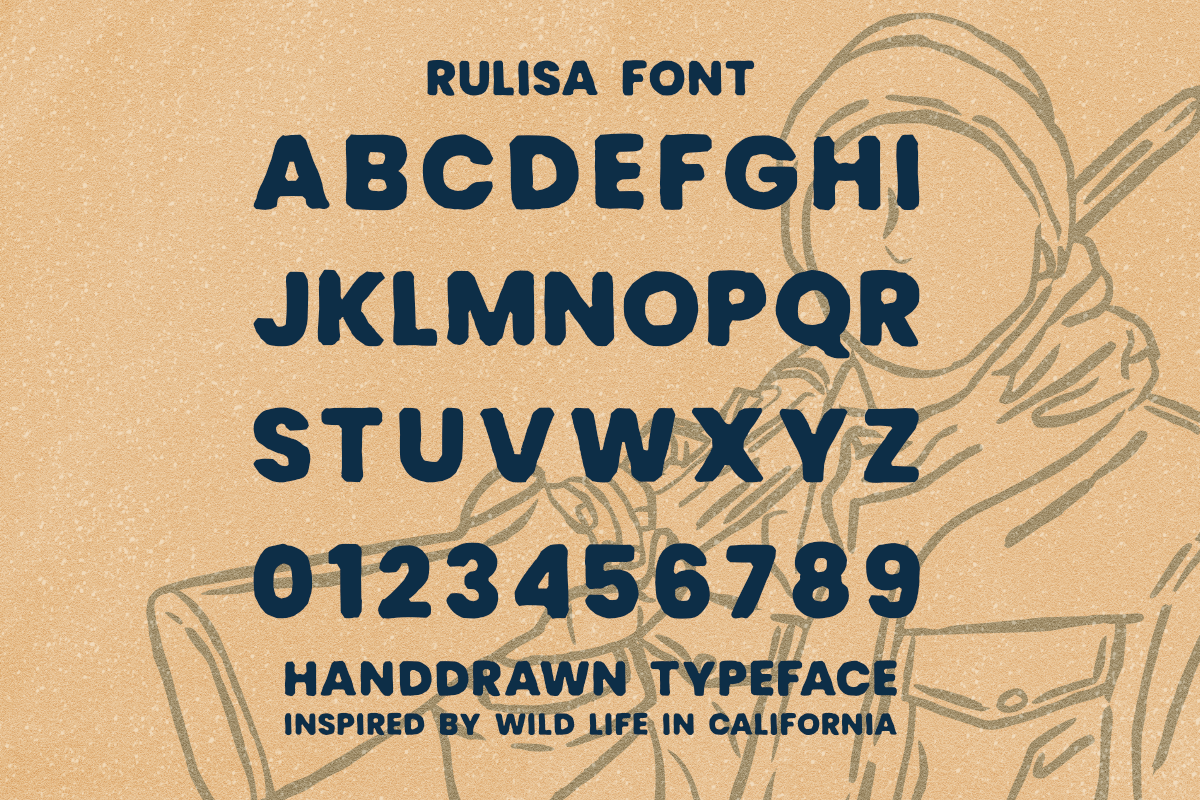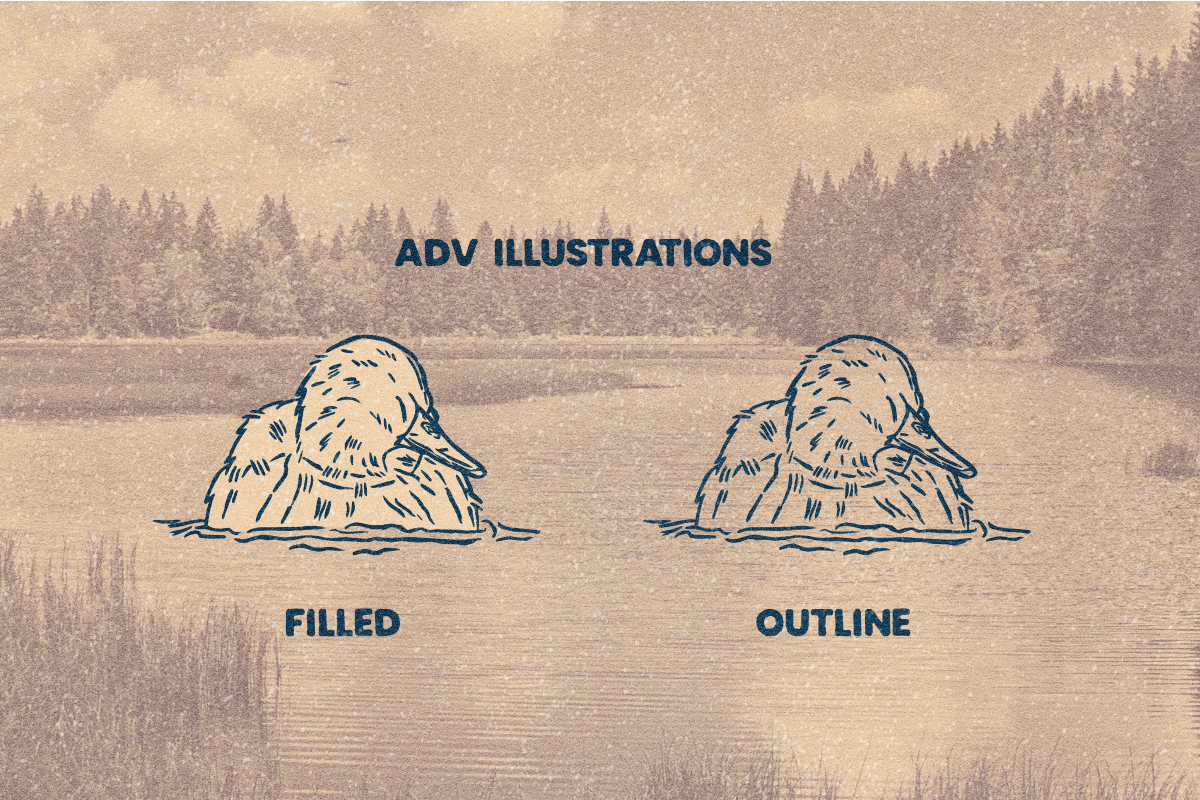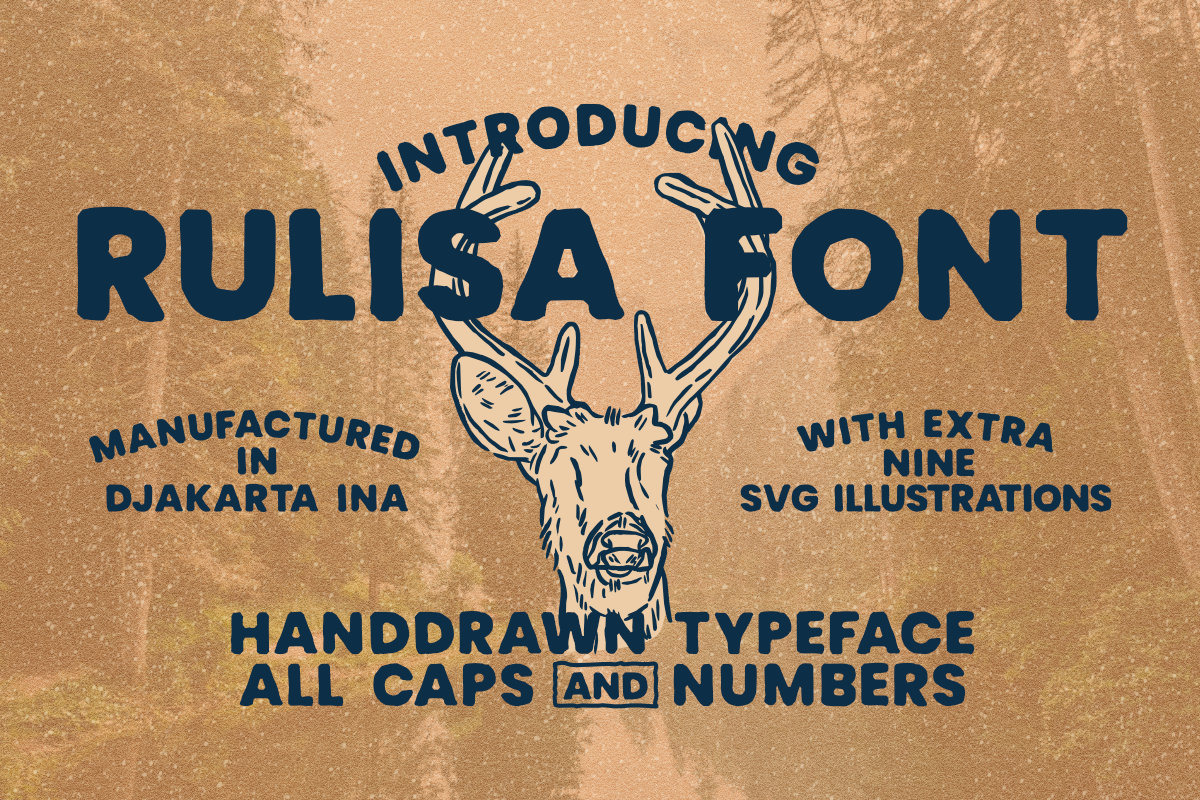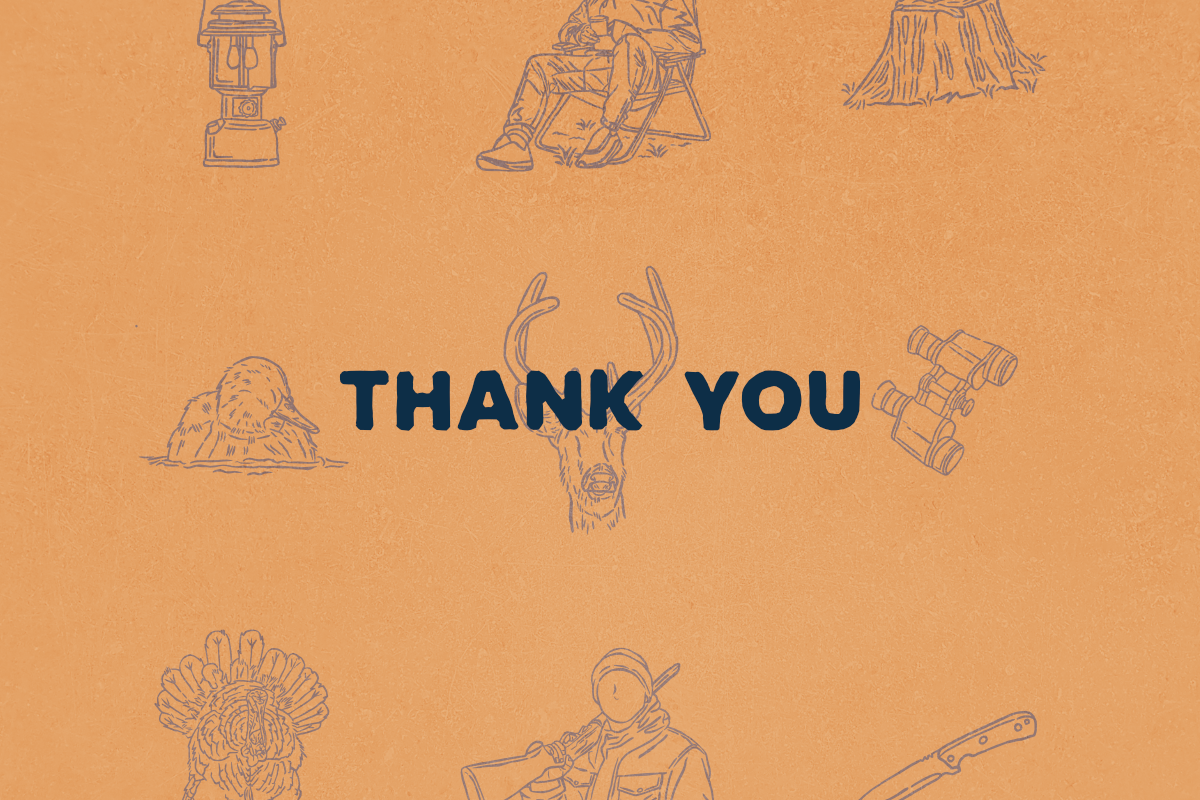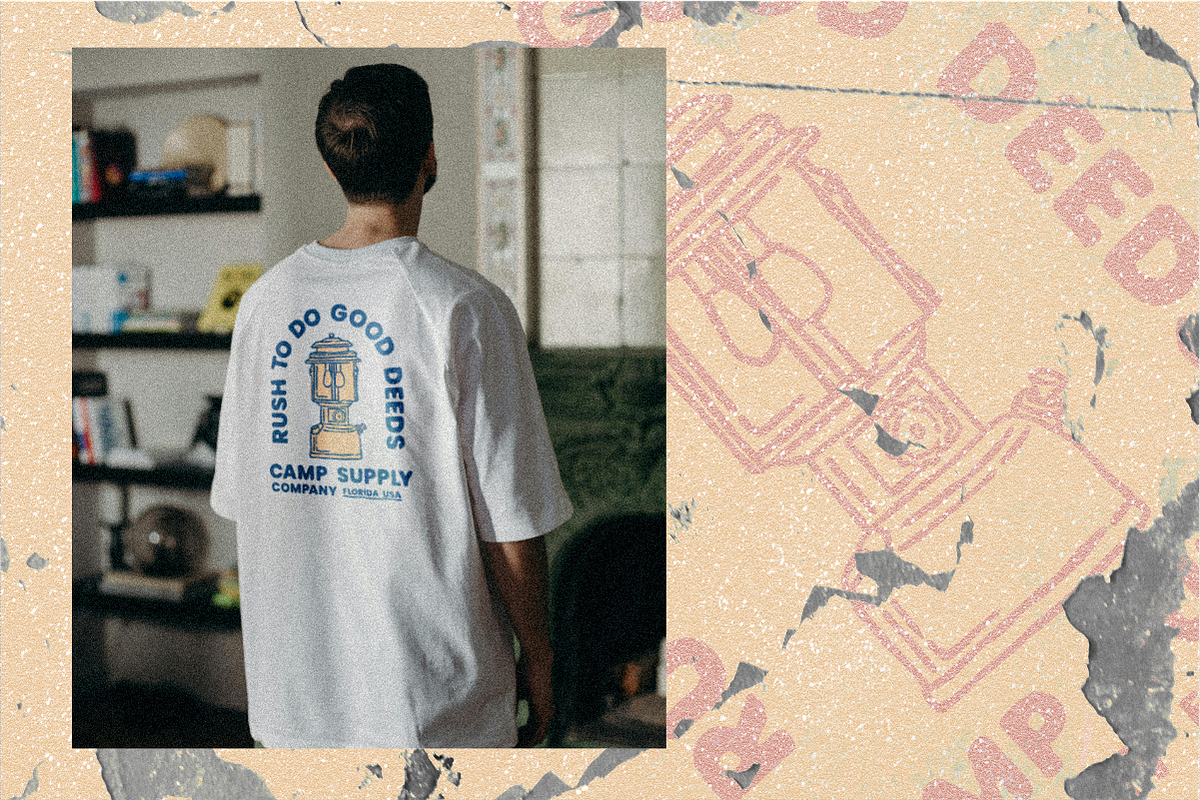
Rulisa Vintage Font and Illustration
Introducing the Rulisa Font and Illustration collection, offering premium classic/vintage hand-drawn fonts and illustrations for your creative endeavors. Drawing inspiration from the adventurous spirit of California, this set includes the Rulisa font along with nine meticulously crafted vintage illustrations representing various adventure themes.
These hand-drawn elements are readily available for use, allowing you to effortlessly create an authentic vintage aesthetic for a multitude of projects including logo and branding design, apparel, packaging, stickers, and more.